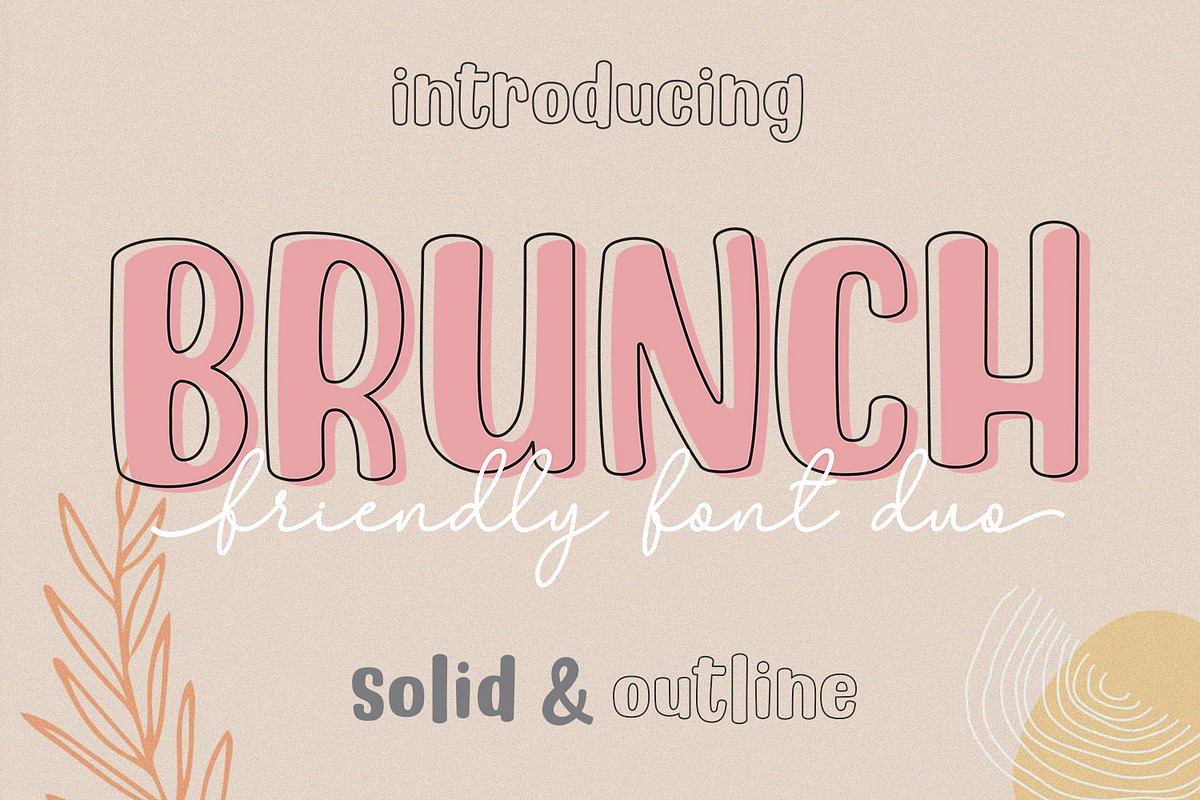
BRUNCH - Cute Font Duo Free Download is a delightful combination of a playful script and a clean, modern sans-serif typeface. Perfect for a variety of creative projects such as branding, logos, invitations, social media posts, and more, BRUNCH adds a cheerful and charming touch to your designs. The duo of fonts works seamlessly together, providing flexibility and style for both casual and professional designs.